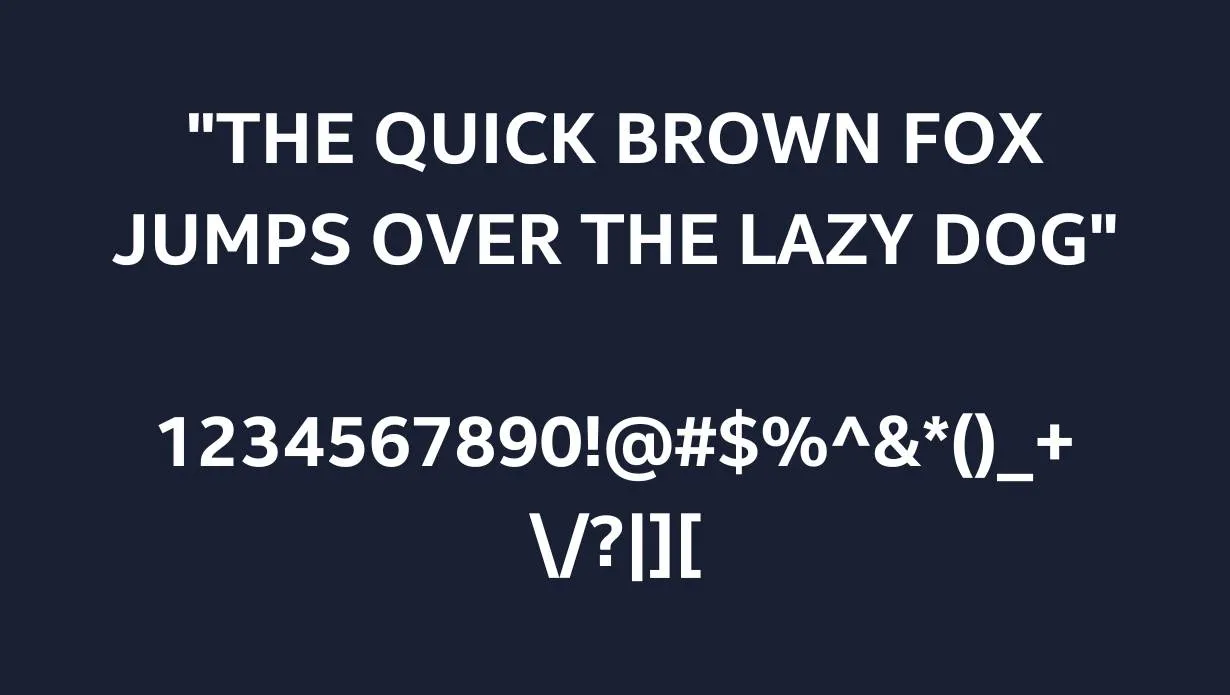
Intel Clear Font is a modern and straightforward typeface with a focus on legibility. It’s often used in technical documentation, user interfaces, and branding materials where clarity and readability are essential.